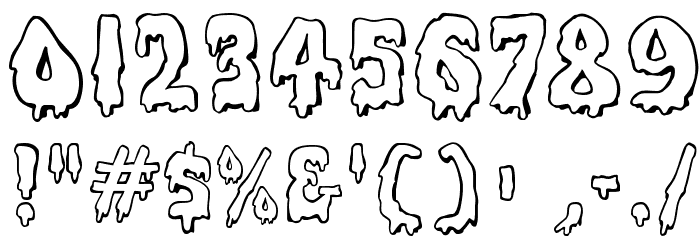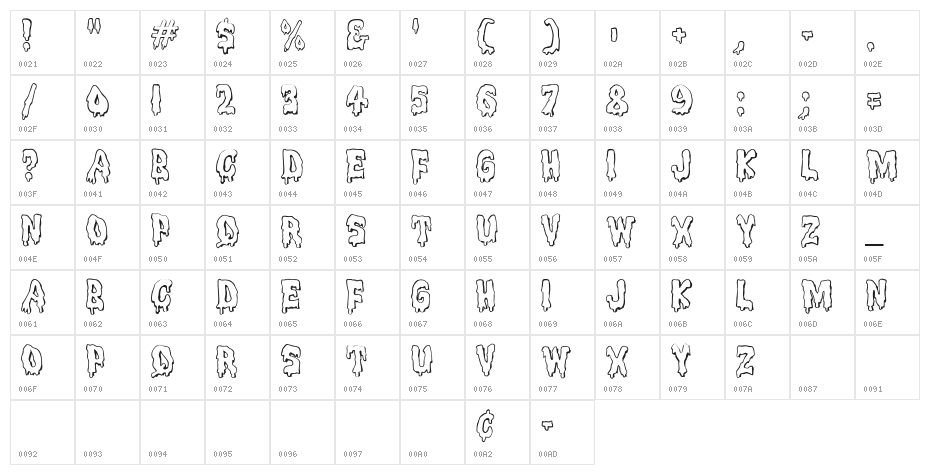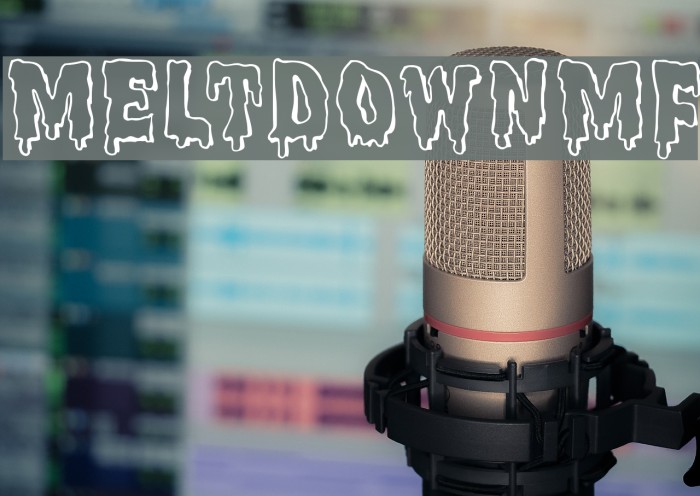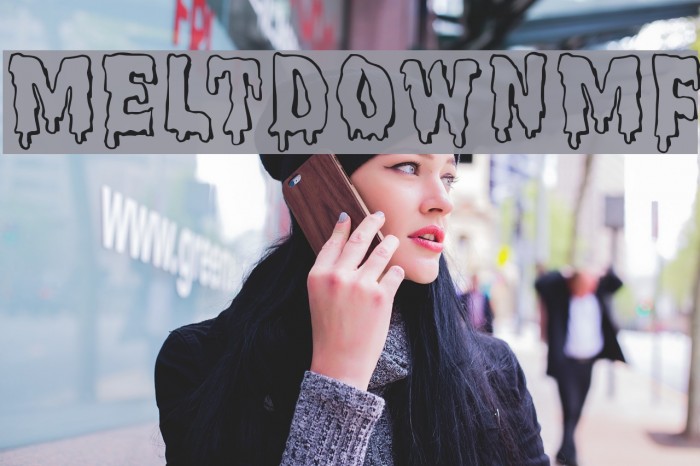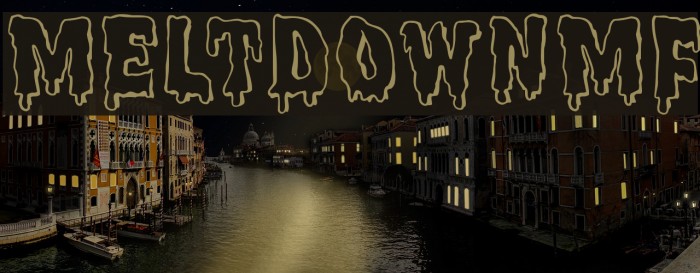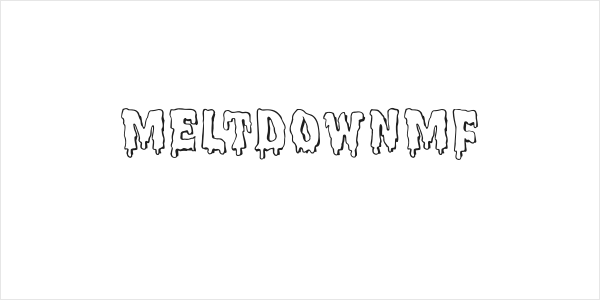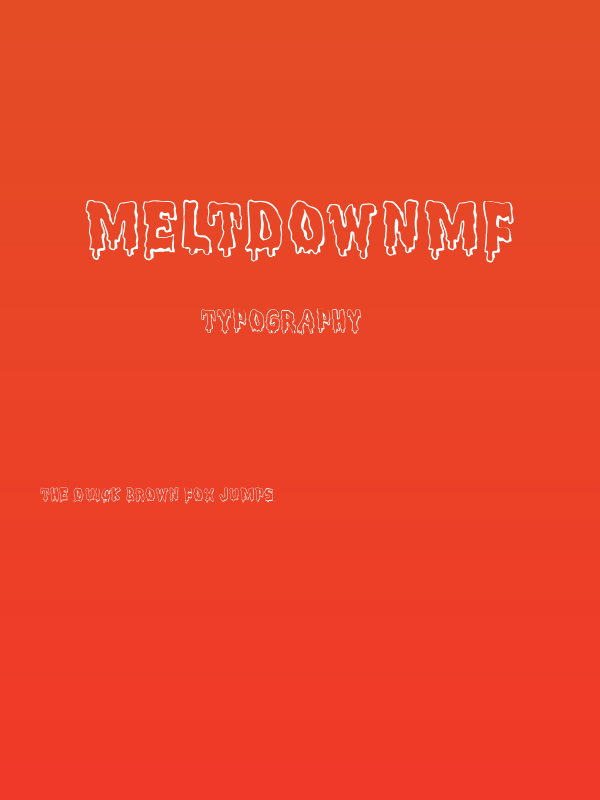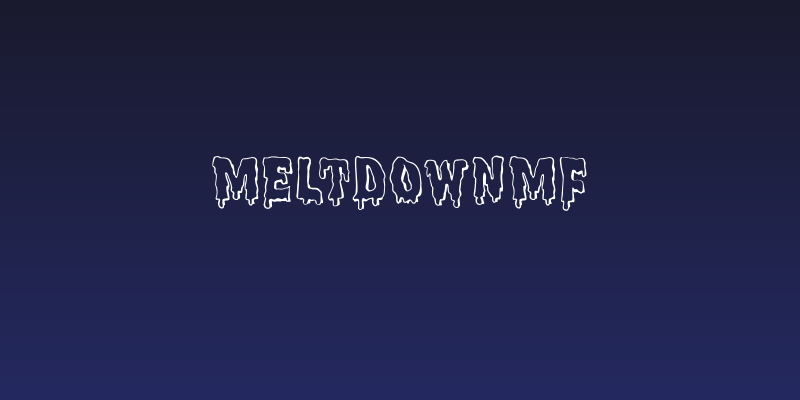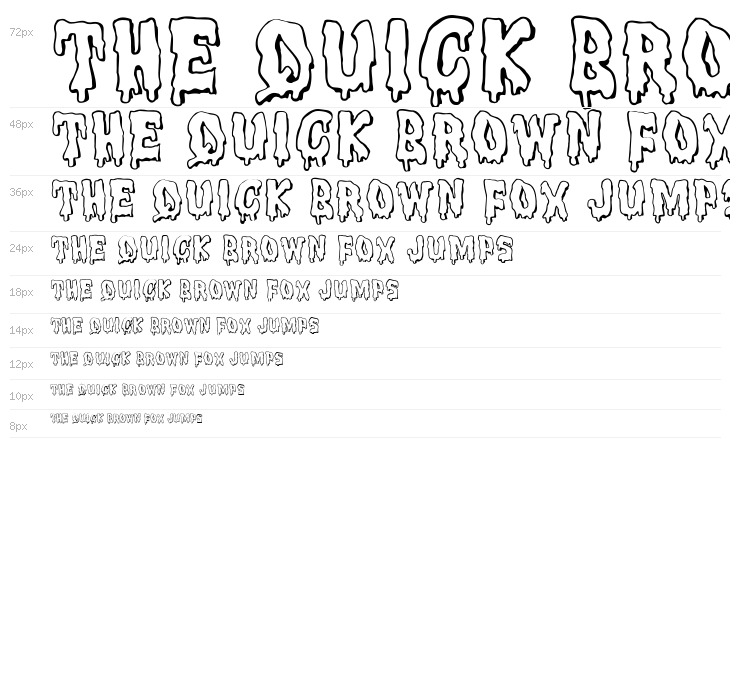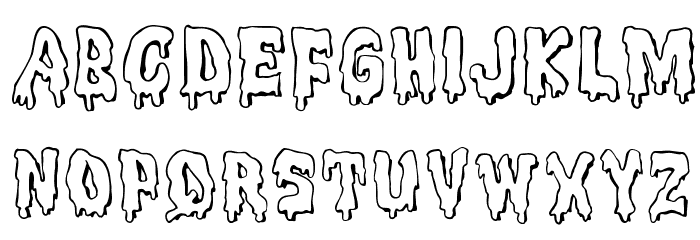
MeltdownMF Font
MeltdownMF Description
This font features a unique, playful design that resembles melting or dripping elements, giving it a dynamic and fluid appearance. The characters are bold and have a hand-drawn quality, with irregular edges that enhance the melting effect. The font is highly decorative, making it ideal for creative and eye-catching designs. It maintains legibility despite its unconventional style, with each letter and number clearly distinguishable. The special characters are also designed to match the melting theme, ensuring consistency across all elements.
| Proposed Projects | Ideal for Halloween-themed designs, children's book covers, playful posters, and creative branding projects. |